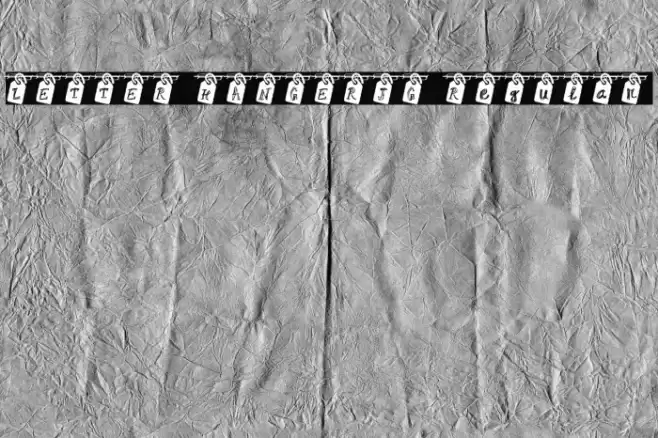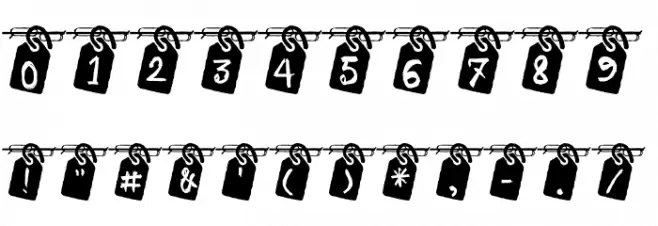
LETTER HANGER_JG Regular Font
LETTER HANGER_JG Regular Description
This unique font features characters that appear to be hanging from a line, each letter and number displayed on a tag-like background. The design is playful and decorative, with a hand-drawn aesthetic that adds a whimsical touch. The characters are bold and stand out against the dark background, making them highly visible. The uppercase and lowercase letters maintain a consistent style, while the numbers and special characters complement the overall theme. This font is ideal for creative projects where a fun and engaging look is desired.
A playful, decorative font with characters on hanging tags from Decorative fonts.
- Proposed Projects: Ideal for children's book covers, party invitations, playful branding, and creative posters.